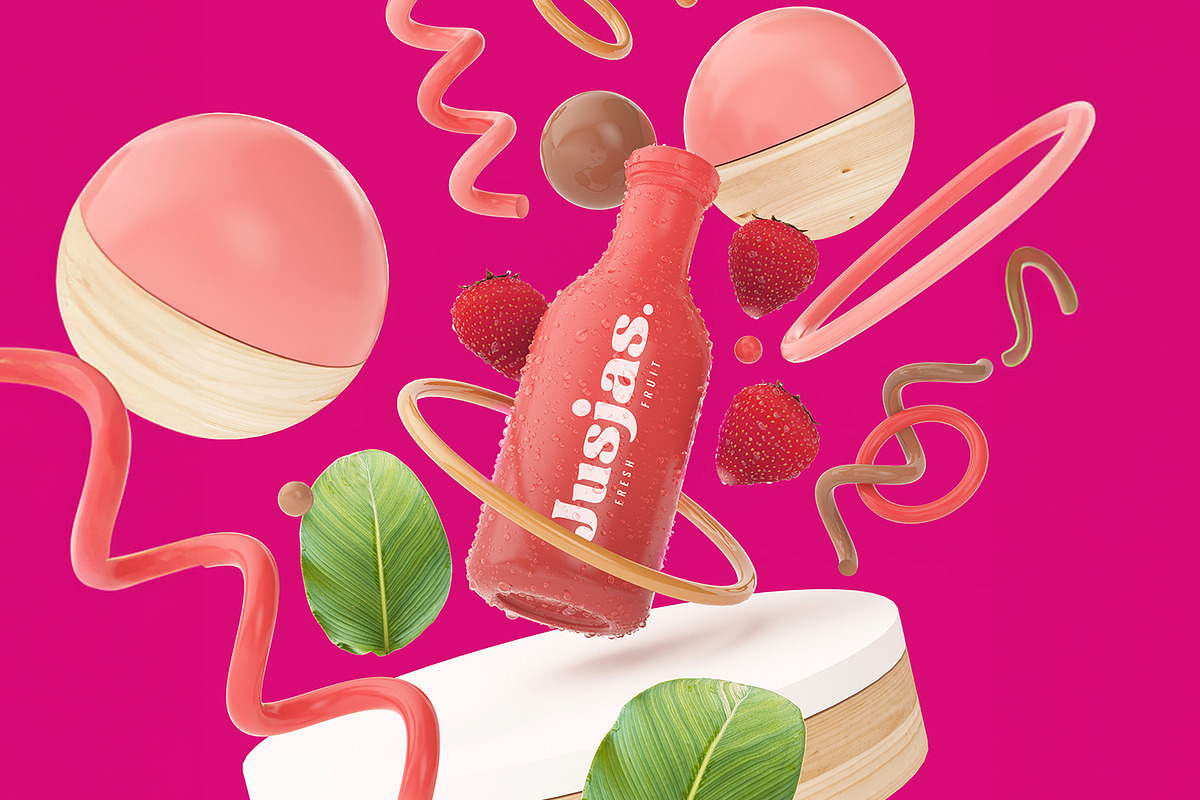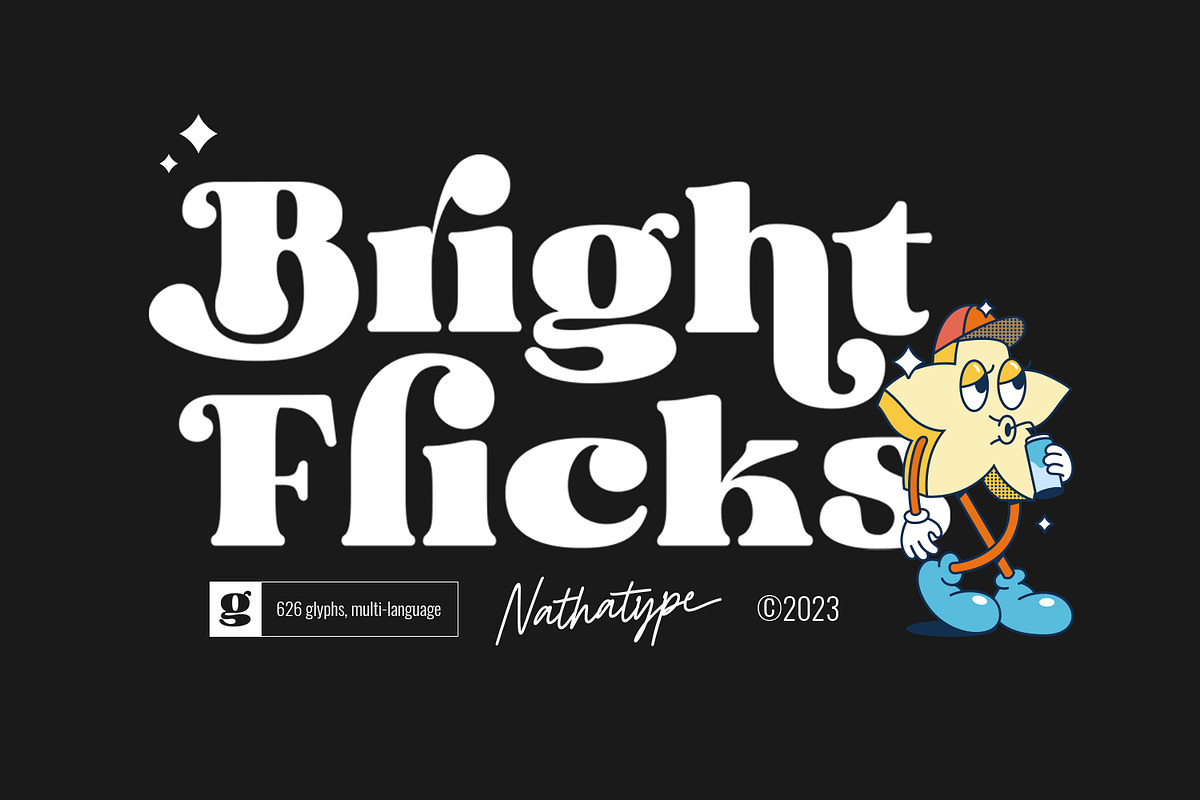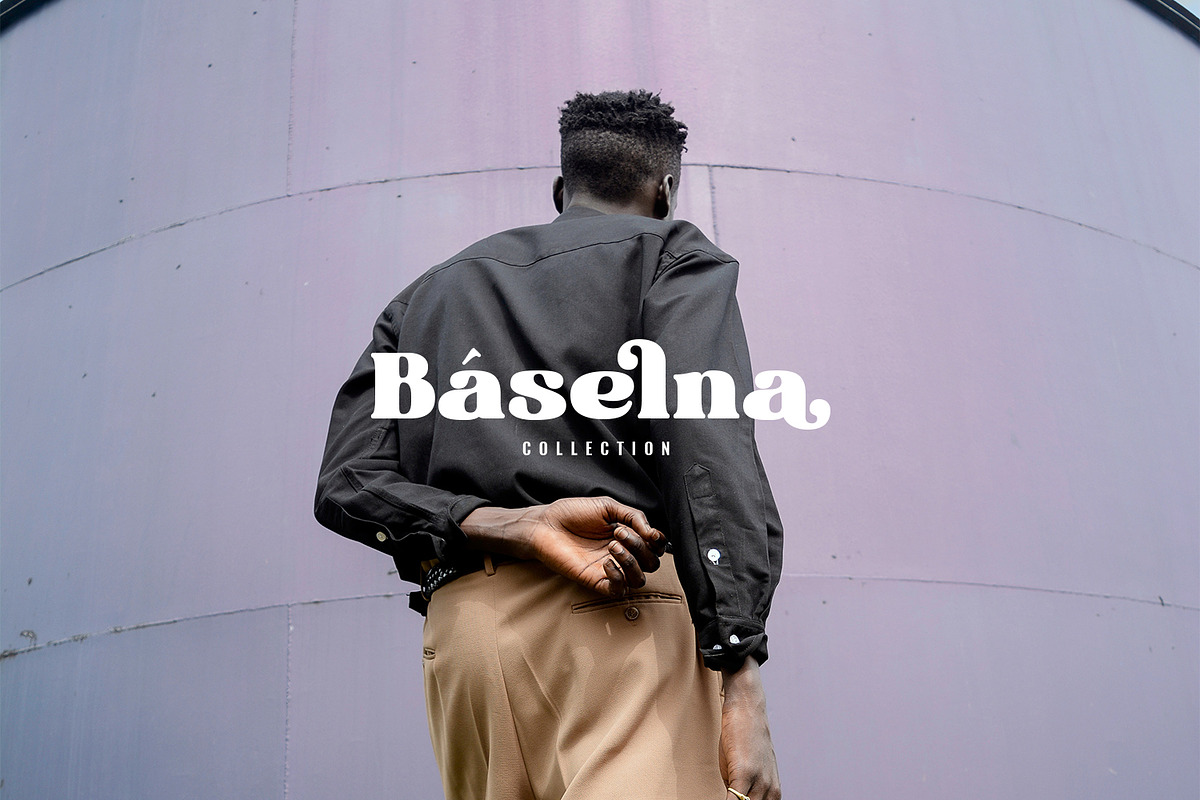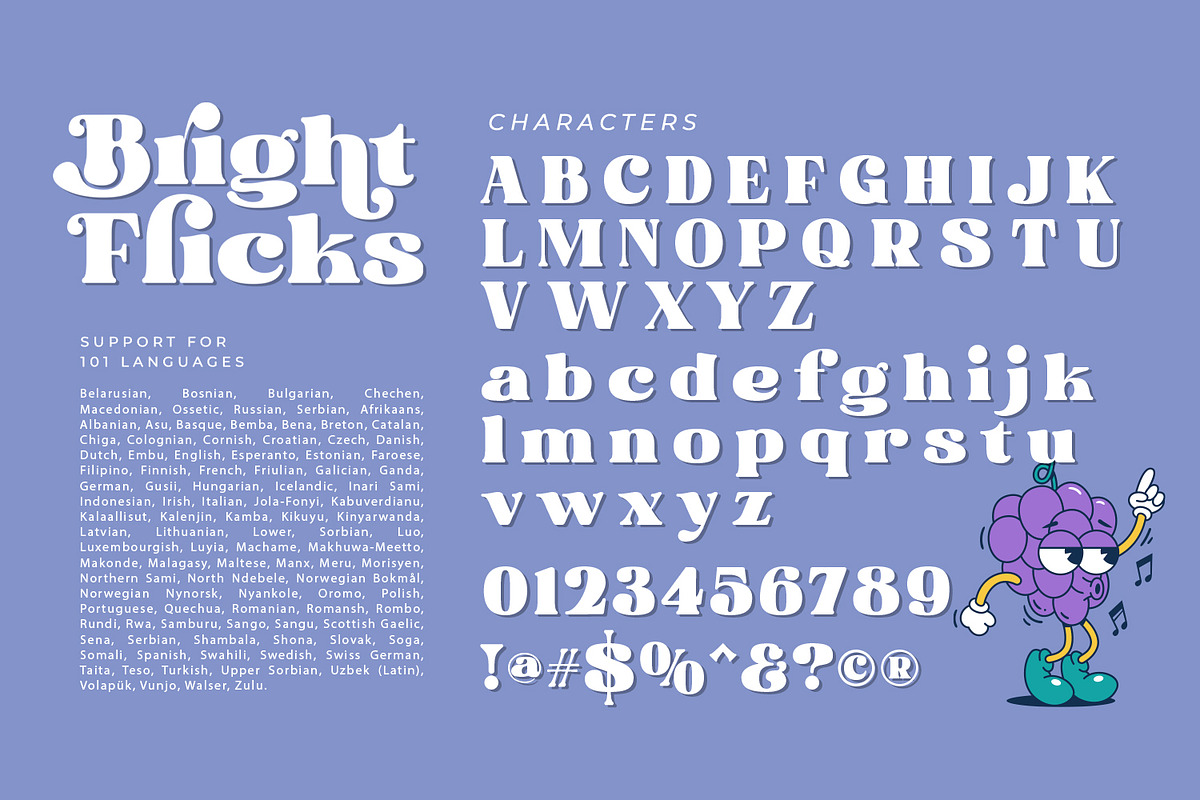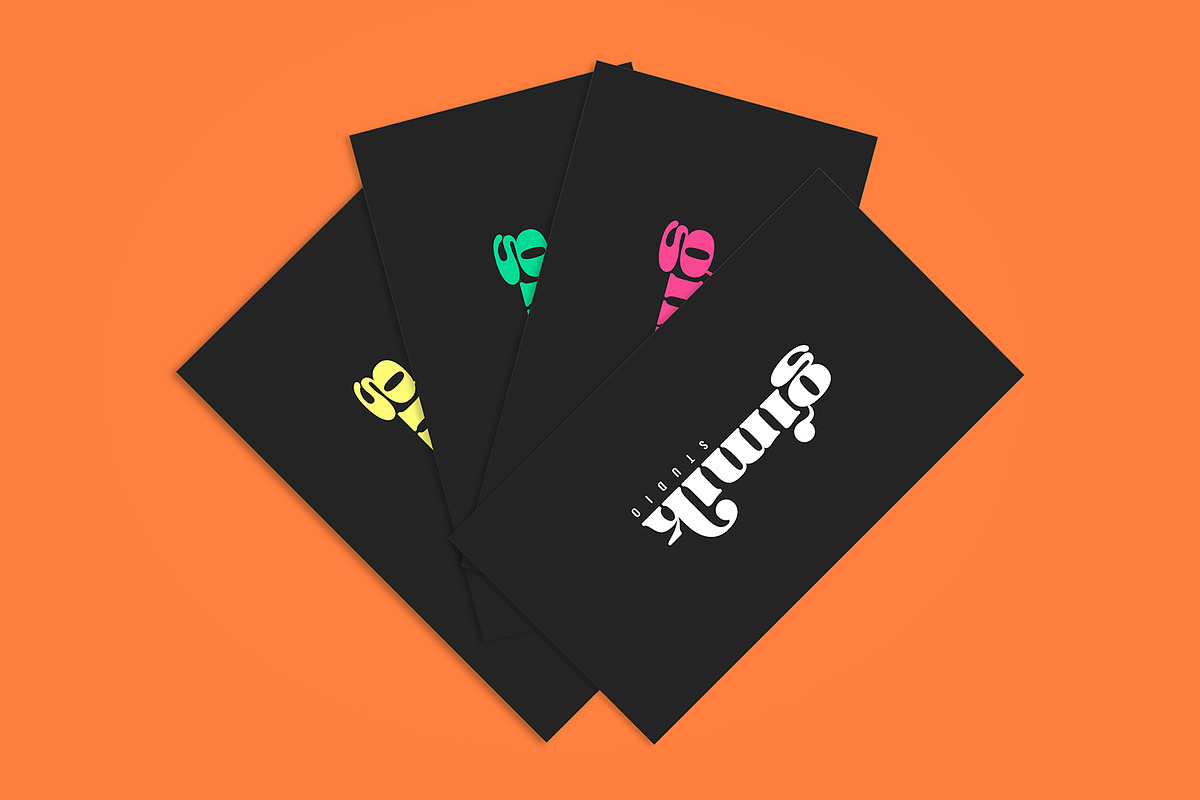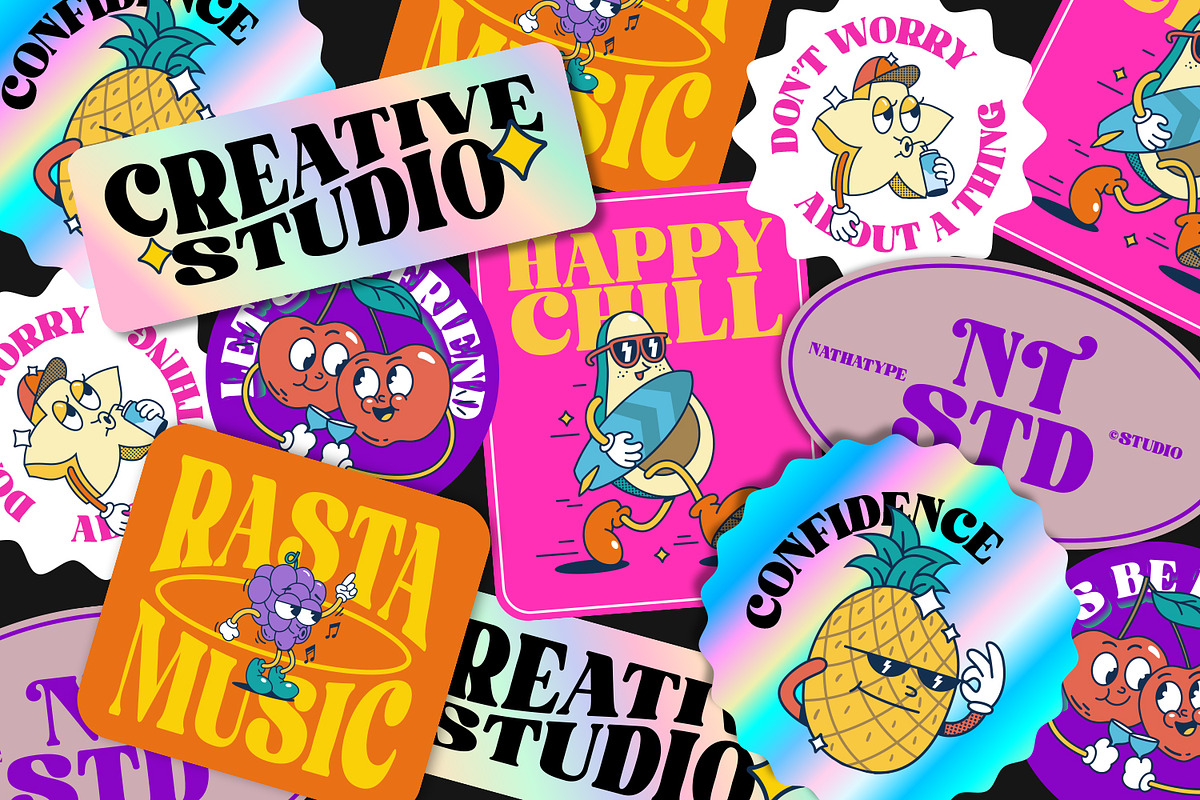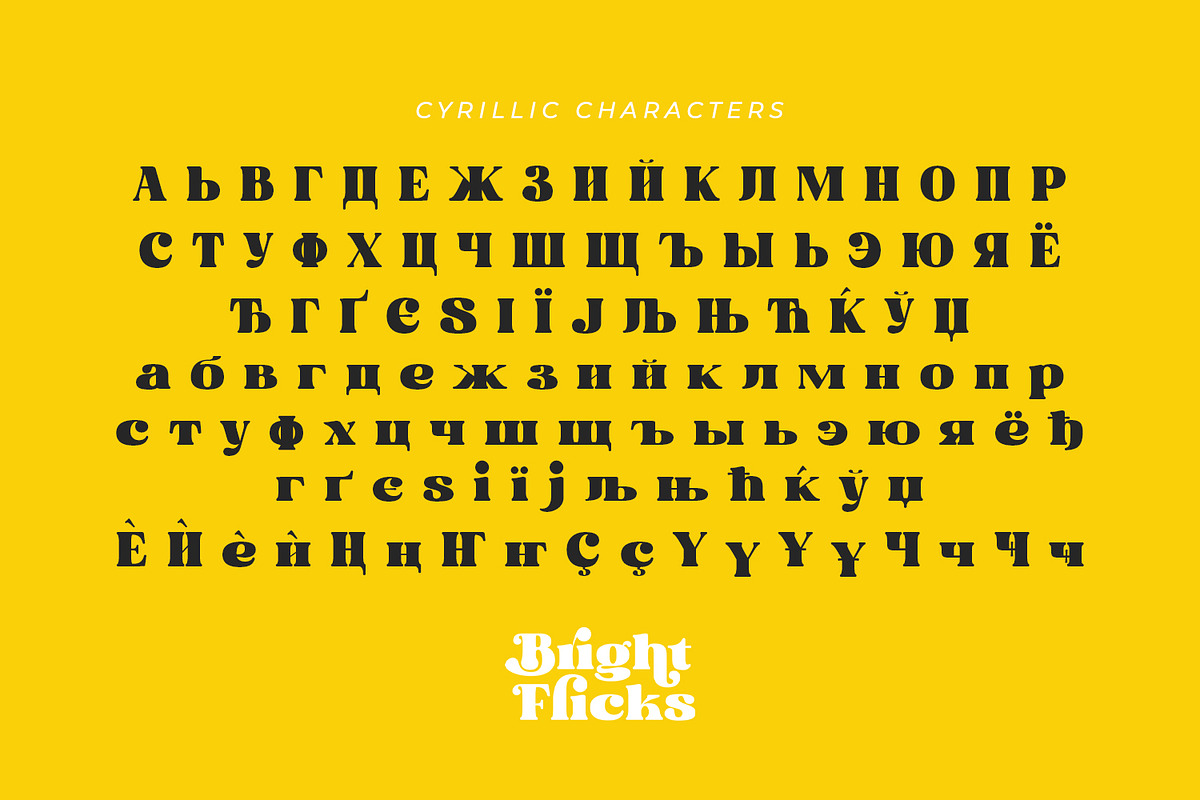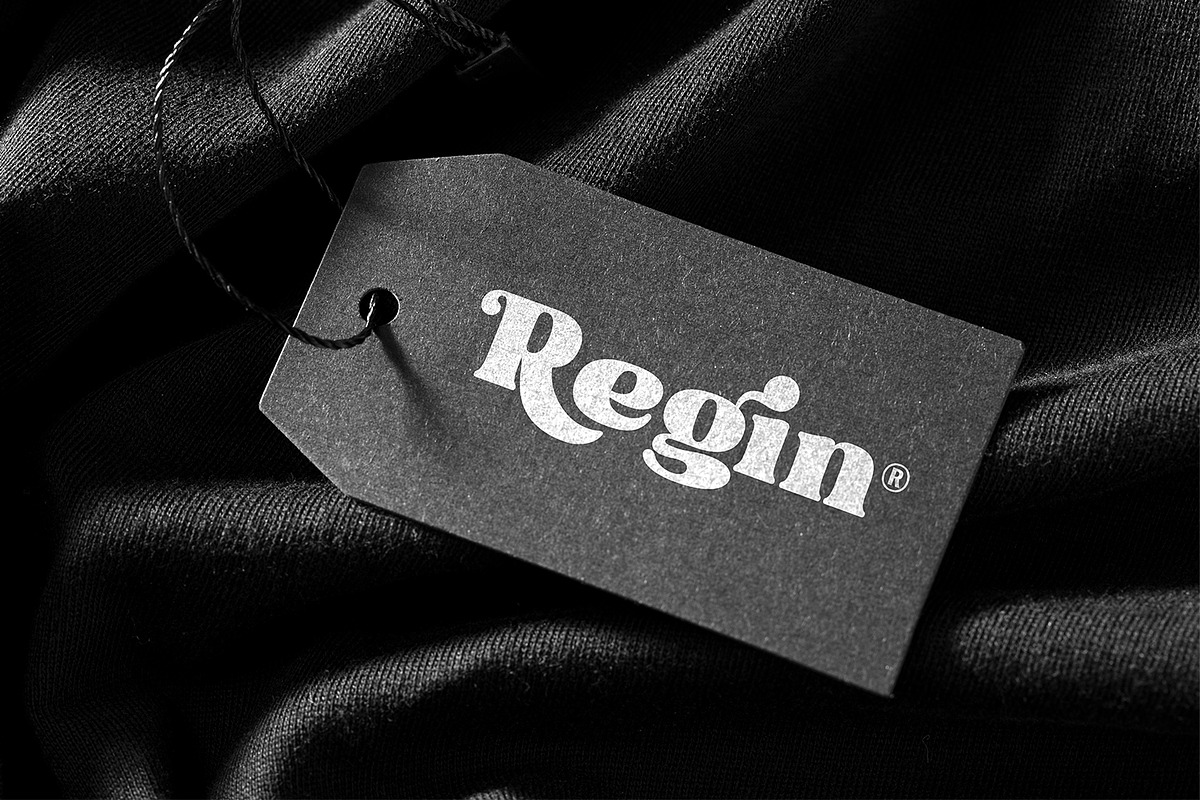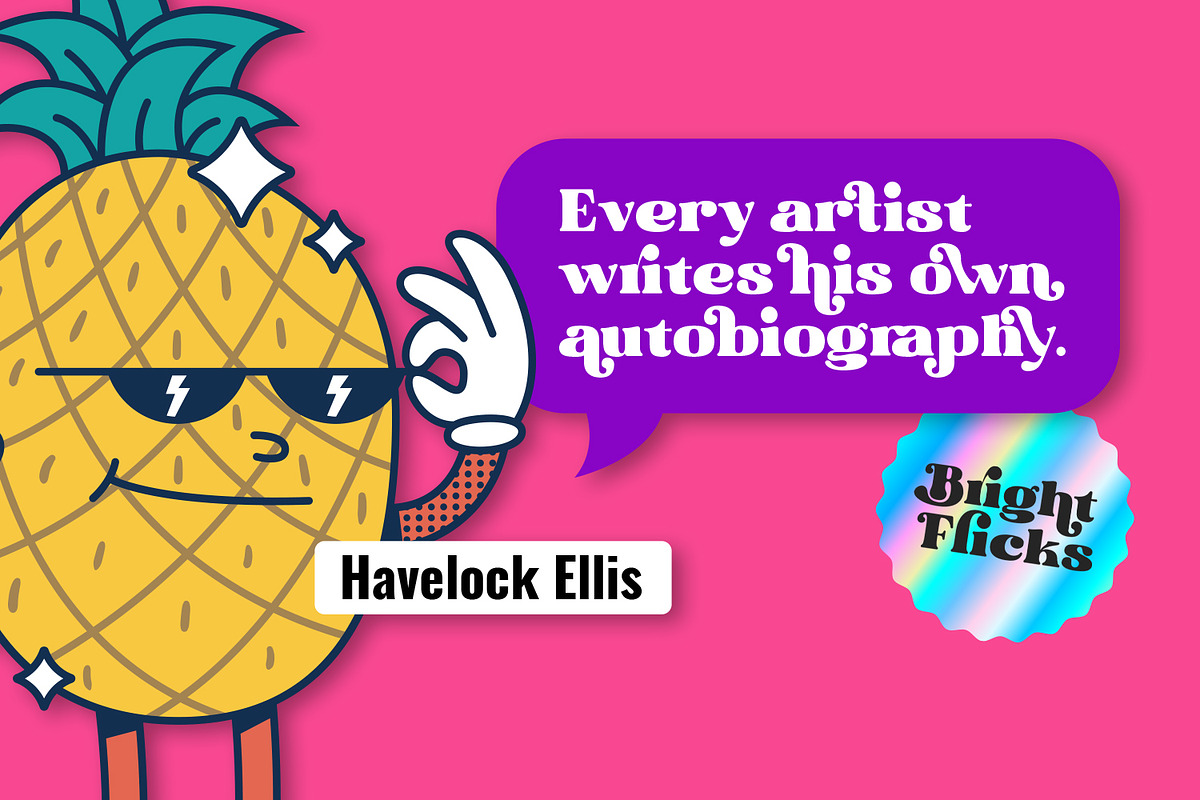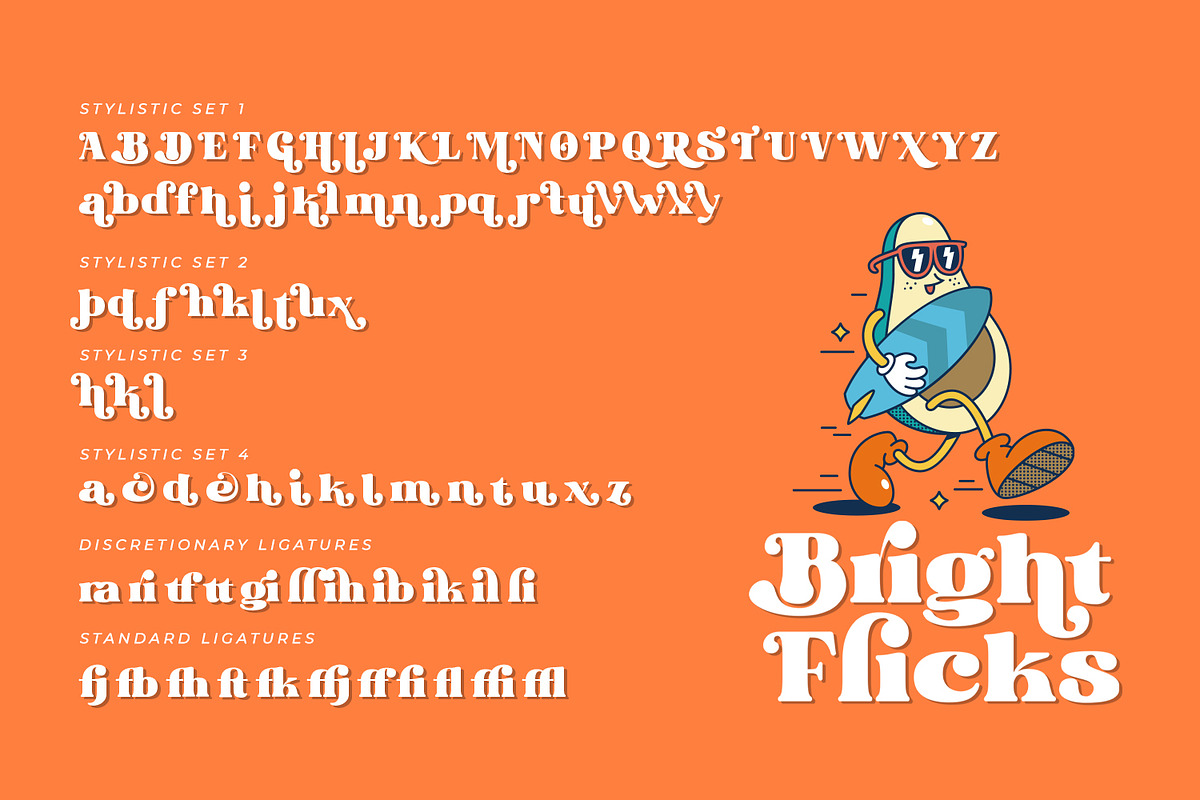
Bright Flicks
Bright Flicks is a delightful script font that embodies a playful and whimsical spirit. With its rounded letterforms and charming swings at the ends of some letters, this typeface adds a joyful and lively touch to your designs. The defining feature of this script lies in its rounded shape, which gives the font a friendly and approachable appearance. The letterforms flow smoothly, creating a sense of fluidity and movement. Each letter flows into the next, creating a harmonious and lively composition. The uppercase letterforms are crafted with precision and creativity, maintaining legibility while embracing the playful nature of the font. Adding to its character are the swings at the ends of select letters, adding a touch of playfulness and spontaneity. Bright Flicks captures the essence of creativity and imagination. The rounded shapes evoke a sense of warmth and friendliness, while the swings at the ends of certain letters add a touch of whimsy and fun. This font brings a sense of joy and positive energy to your designs. You can also enjoy the various features available in this font.
- Stylistic Sets
Bright Flicks fits in logos, branding materials, packaging, and any design project that aims to evoke a sense of cheerfulness and creativity. Whether you're working on invitations, greeting cards, posters, or any project that needs a touch of playfulness, this font will bring a vibrant and lively vibe. Find out more ways to use this font by taking a look at the font preview.